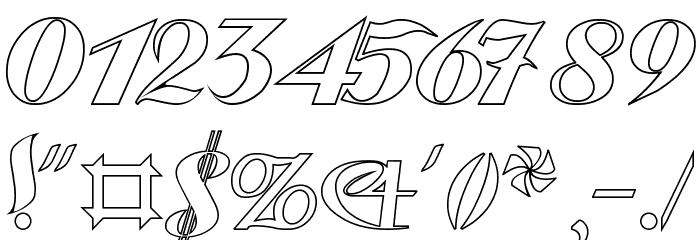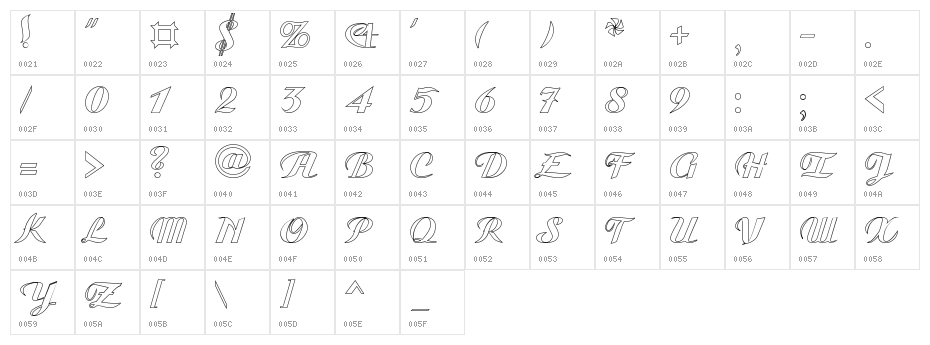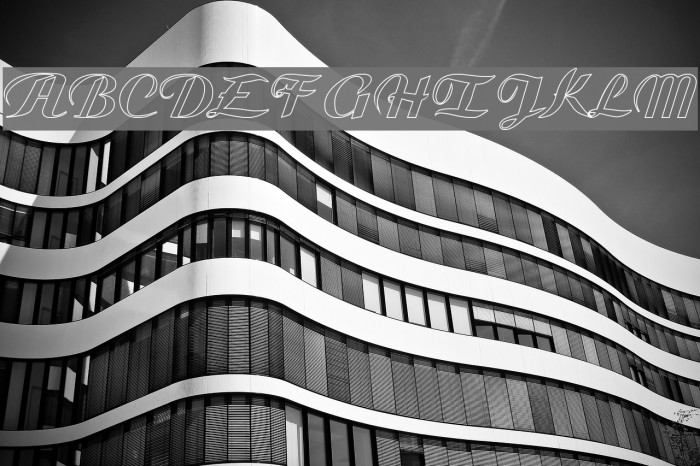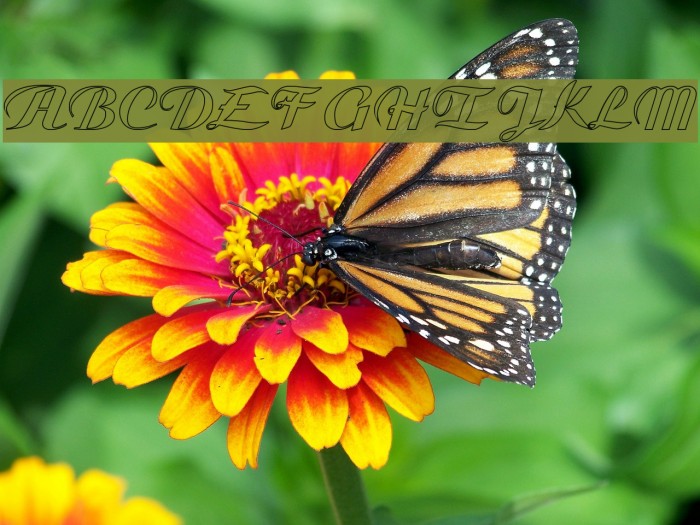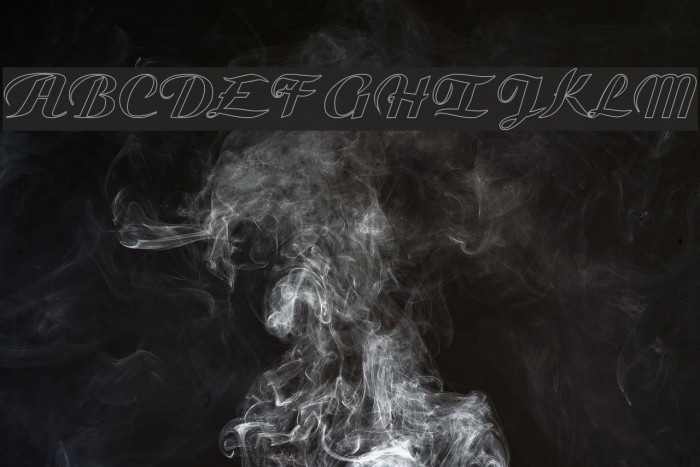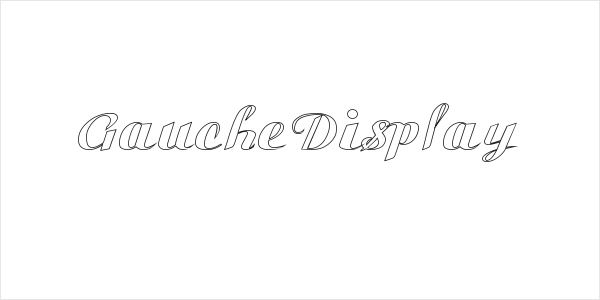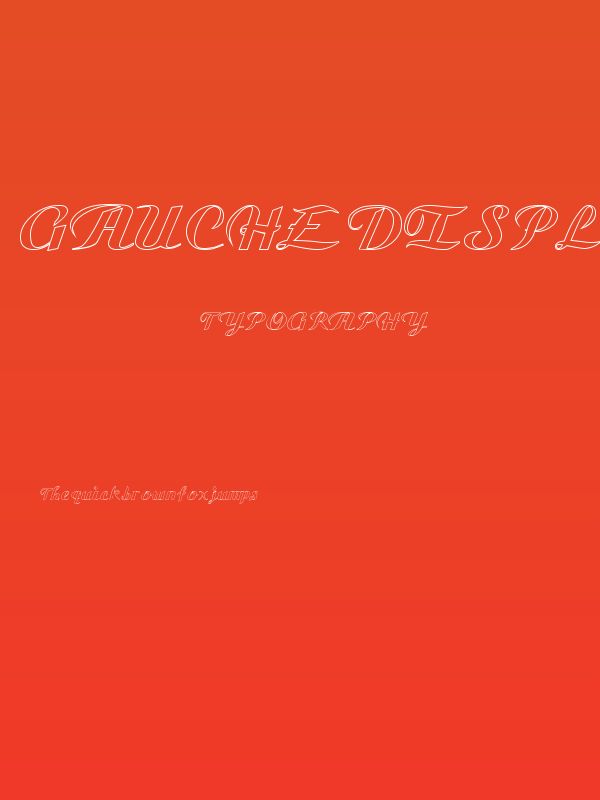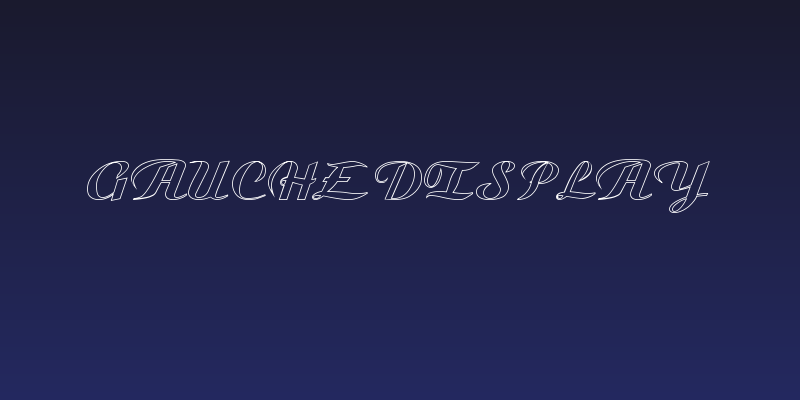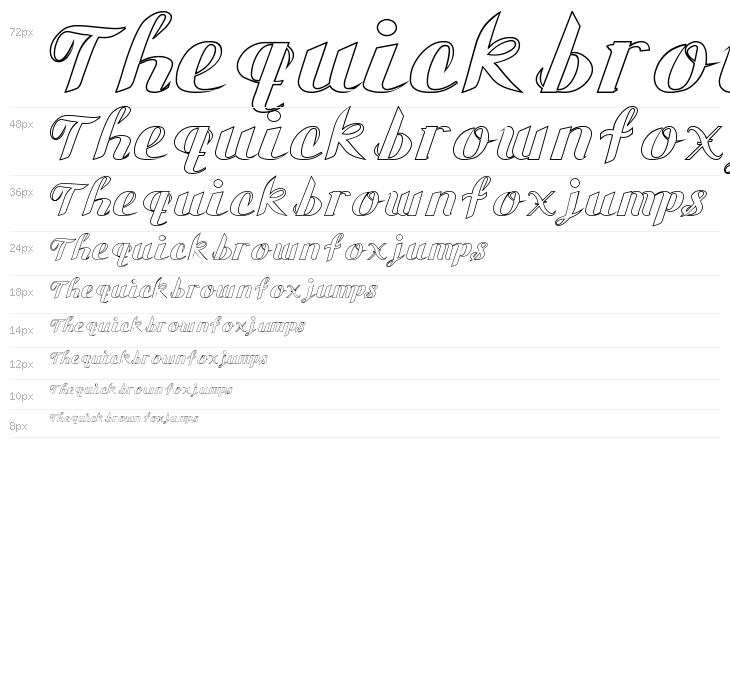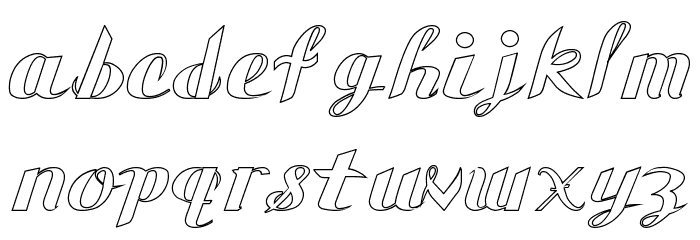
Gauche Display Font
Gauche Display Description
This font features a unique and decorative style with a script-like appearance. The characters are outlined, giving them a hollow look, which adds to their distinctiveness. The uppercase letters are bold and dynamic, with exaggerated curves and flourishes that convey a sense of movement and elegance. The lowercase letters maintain a similar style, with a slightly more subdued flair, making them readable yet stylish. The numerals are equally bold, with a consistent design that matches the alphabet. Special characters are creatively designed, adding to the font's overall artistic appeal. This font is ideal for projects that require a touch of sophistication and creativity.
| Use Case | Headlines, Logos, Artistic projects |
| Proposed Projects | Ideal for branding, invitations, posters, and artistic projects that require a sophisticated and creative touch. |